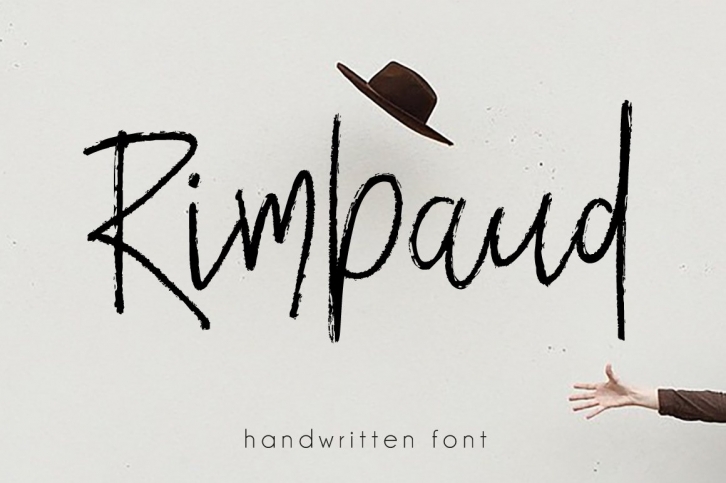
Rimbaud Script
Creating this font, I was inspired by the poetry of a remarkable writer Arthur Rimbaud. It's hand lettered script font. With this type, you will see a lot of extras. This font is ideal for branding and decorate your any project.
This font are perfect for wedding invitation or your blog. Also with their help, you can create a logo or beautiful frame for your home. Or just use for your small business, book covers, stationery, marketing, magazines and more.
Rimbaud Script